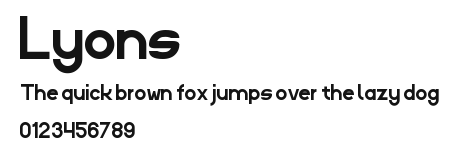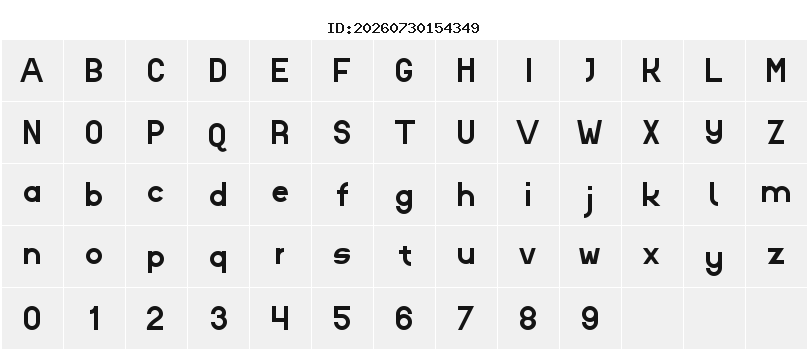
Lyons Preview
• Font Name: Lyons
• Designer: Daniel Lyons
About Lyons.ttf
Lyons.ttf is a modern, elegant sans-serif font designed for ultimate readability and visual harmony. Perfect for branding, headlines, web design, and print materials.